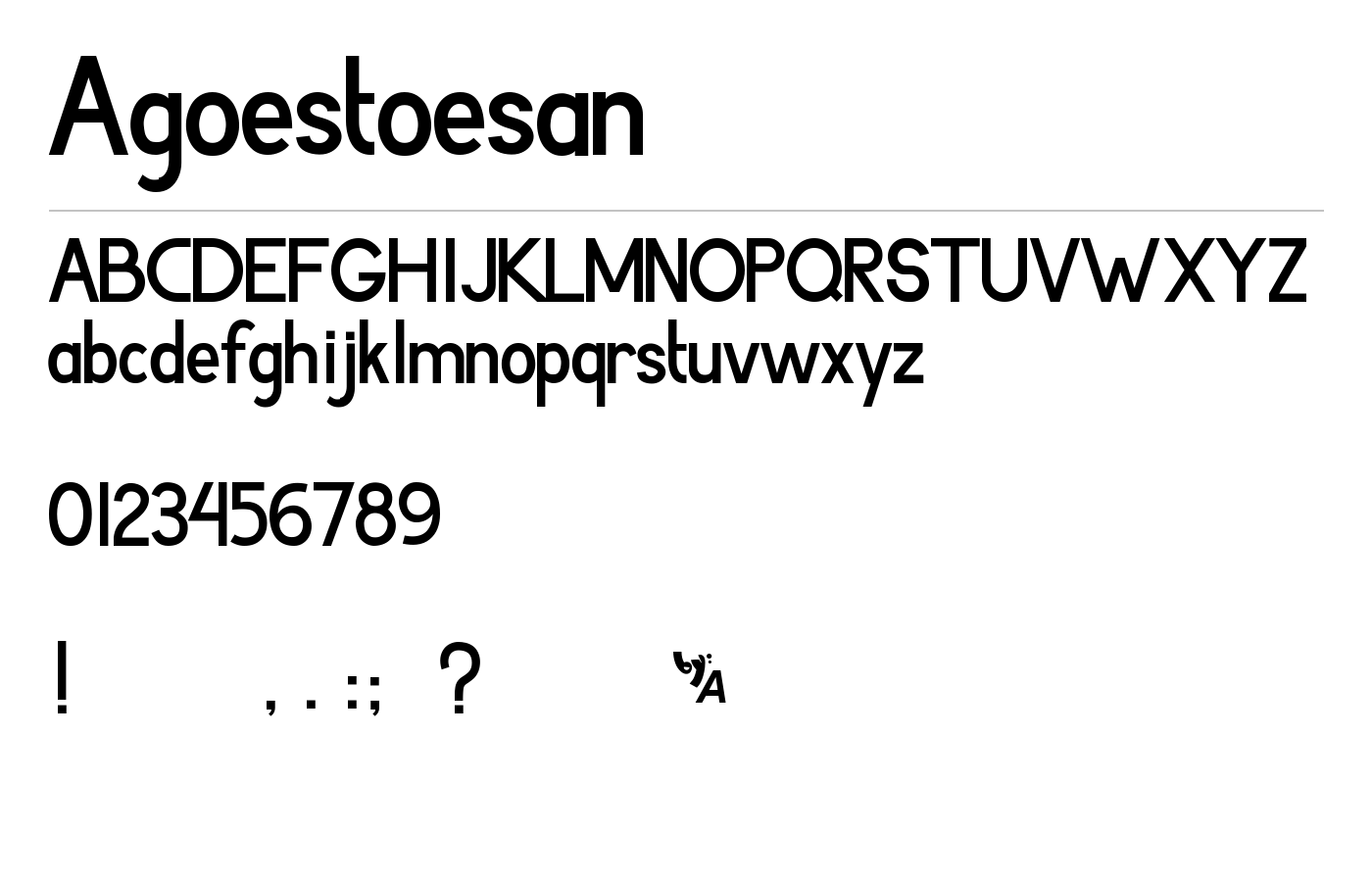
Agoestoesan is a modern sans serif font with a clean, geometric structure and a slightly condensed width that gives it a sleek and contemporary look. Its medium contrast and smooth, sharp strokes make it highly legible for both headlines and body text, while the subtle quirky details in certain letters add character without sacrificing clarity. This versatile typeface works well for branding, editorial design, and digital content, bringing a professional yet friendly tone to any project.
Agoestoesan Font